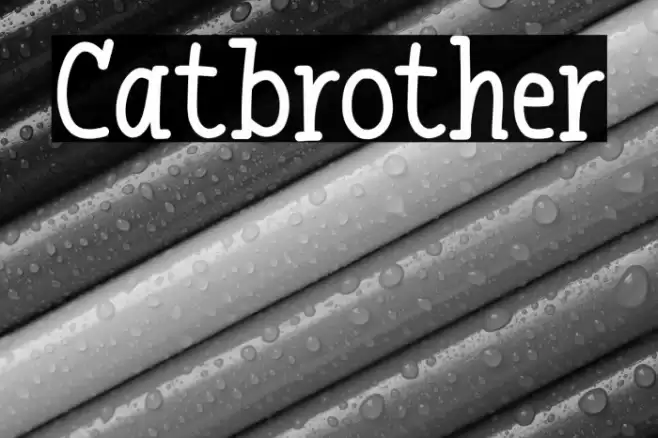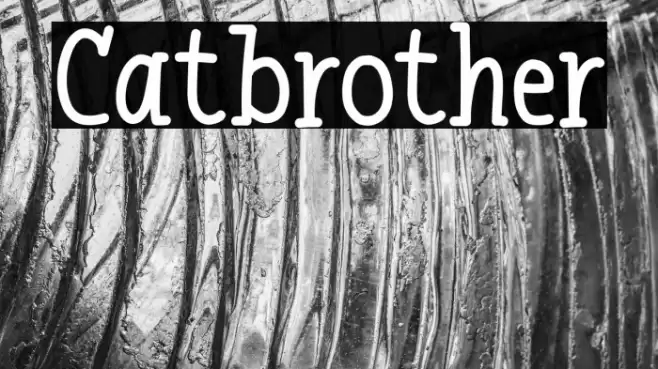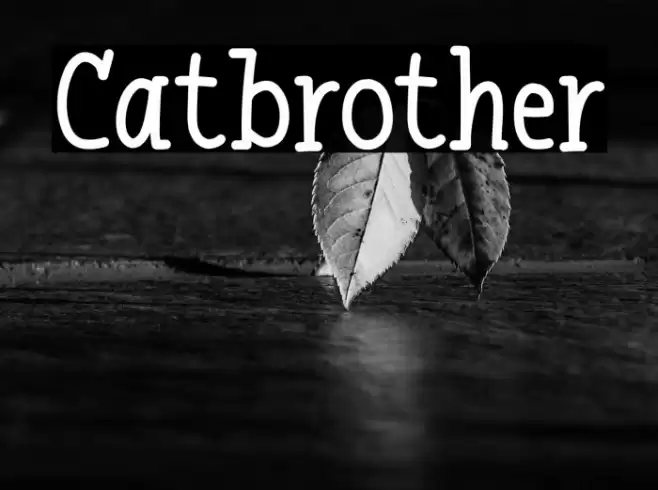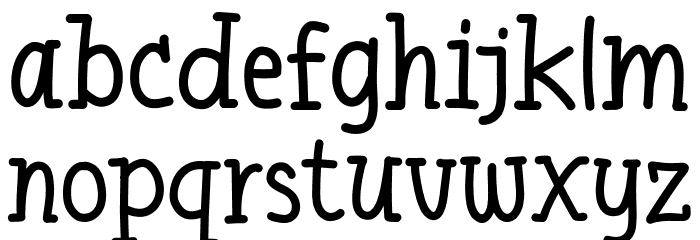
Catbrother Font
Catbrother Description
This playful and whimsical font features a handwritten style with a casual and friendly appearance. The letters are slightly irregular, adding a touch of personality and charm. The uppercase and lowercase characters maintain a consistent style, with rounded edges and a smooth flow. The numerals and special characters complement the alphabet with the same playful aesthetic. This font is perfect for projects that require a fun and approachable look, such as children's books, invitations, or casual branding.
A playful, handwritten font with a whimsical and friendly style from Uncategorized fonts.
- Proposed Projects: Ideal for children's books, casual invitations, playful branding, and creative projects.
- Overall Style: Playful
- Use Case: Headlines, Casual text, Creative projects